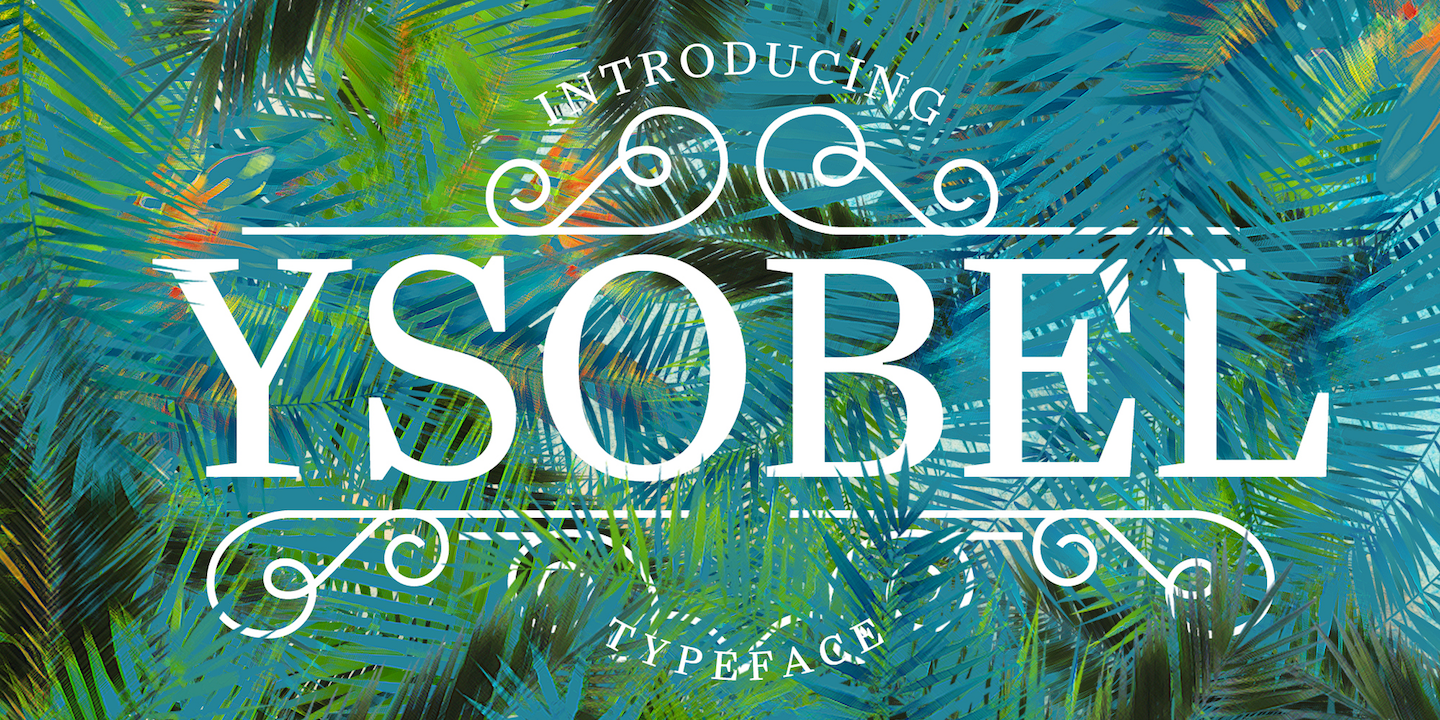
Ysobel Font is an exceptional choice for projects that demand elegance, refinement, and a truly timeless aesthetic. It's perfectly suited for editorial design, high-end branding, formal invitations, corporate communications, and any application where supreme readability combined with a sophisticated appearance is paramount. Imagine it gracing the pages of a luxury magazine, providing a sense of authority and class to a legal document, or giving a distinctive voice to an art gallery's promotional materials. Its classic serif forms and balanced proportions ensure your message is conveyed with both gravitas and an understated beauty.
What makes Ysobel Font so exciting is its masterful blend of traditional elegance and contemporary legibility. It possesses a warmth and clarity that makes long-form reading a pleasure, while its distinctive details provide a unique character that prevents it from feeling generic. This font isn't just about conveying information; it’s about elevating the content, making it feel more authoritative, trustworthy, and aesthetically pleasing. It's the ideal tool for designers who want to create visuals that are both deeply readable and exquisitely styled.
The Ysobel Font family typically offers a comprehensive range of weights and styles to provide maximum design flexibility. You can expect to find a broad spectrum from a delicate Light or Thin, through a versatile Regular, to a commanding Bold or Black weight, often accompanied by corresponding italic versions. This extensive range allows for sophisticated typographic hierarchies and ensures that whether you need subtle annotations or prominent headlines, the Ysobel Font Free Download provides the foundational versatility to achieve a cohesive, elegant, and highly professional design across all your platforms.